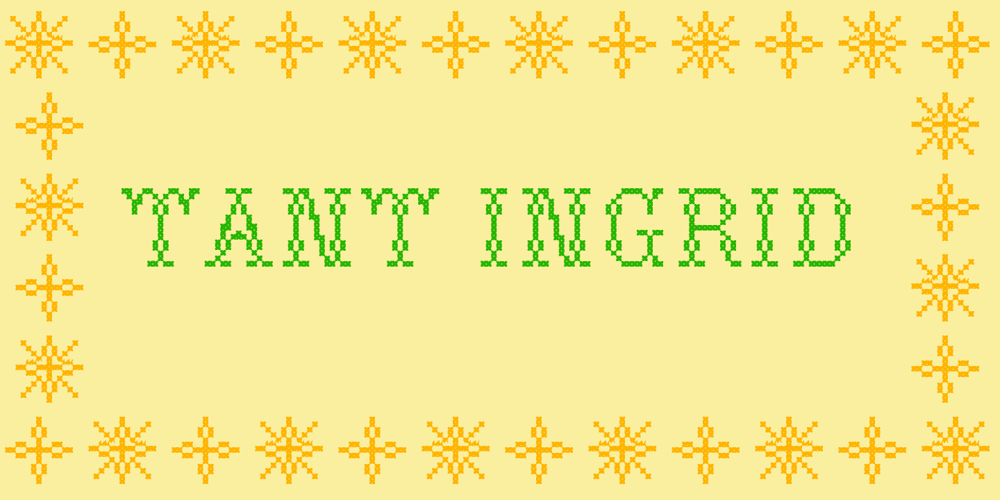
Tant Ingrid
Tant Ingrid font
Tant Ingrid Font Family was designed by Lars Törnqvist and published by Cercurius. Tant Ingrid contains 2 styles and family package options. A thin caps-only cross-stitch font, based on a late 19th century embroidery pattern. It is suitable for birthday cards and posters, signs and ads in the Thanksgiving and Christmas season.